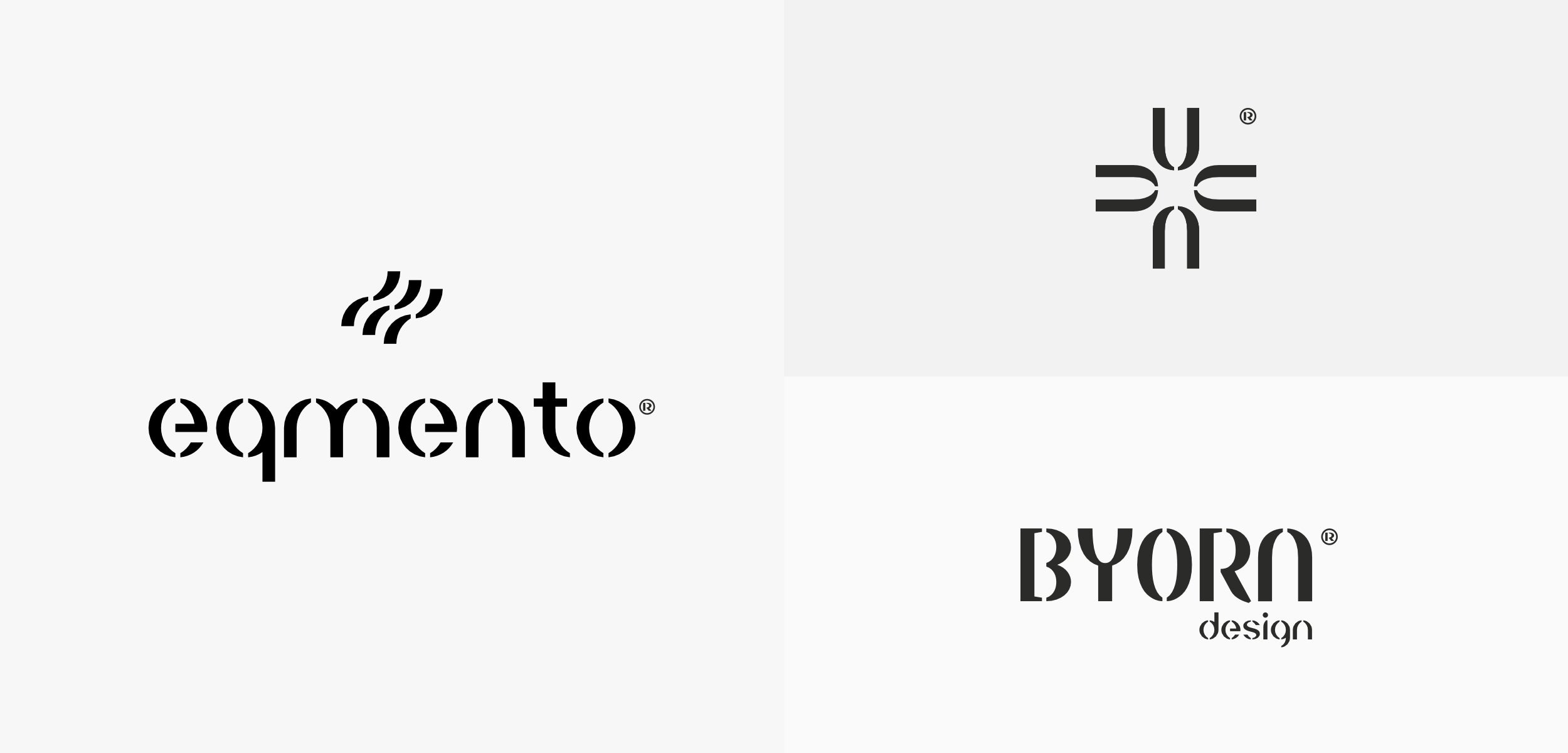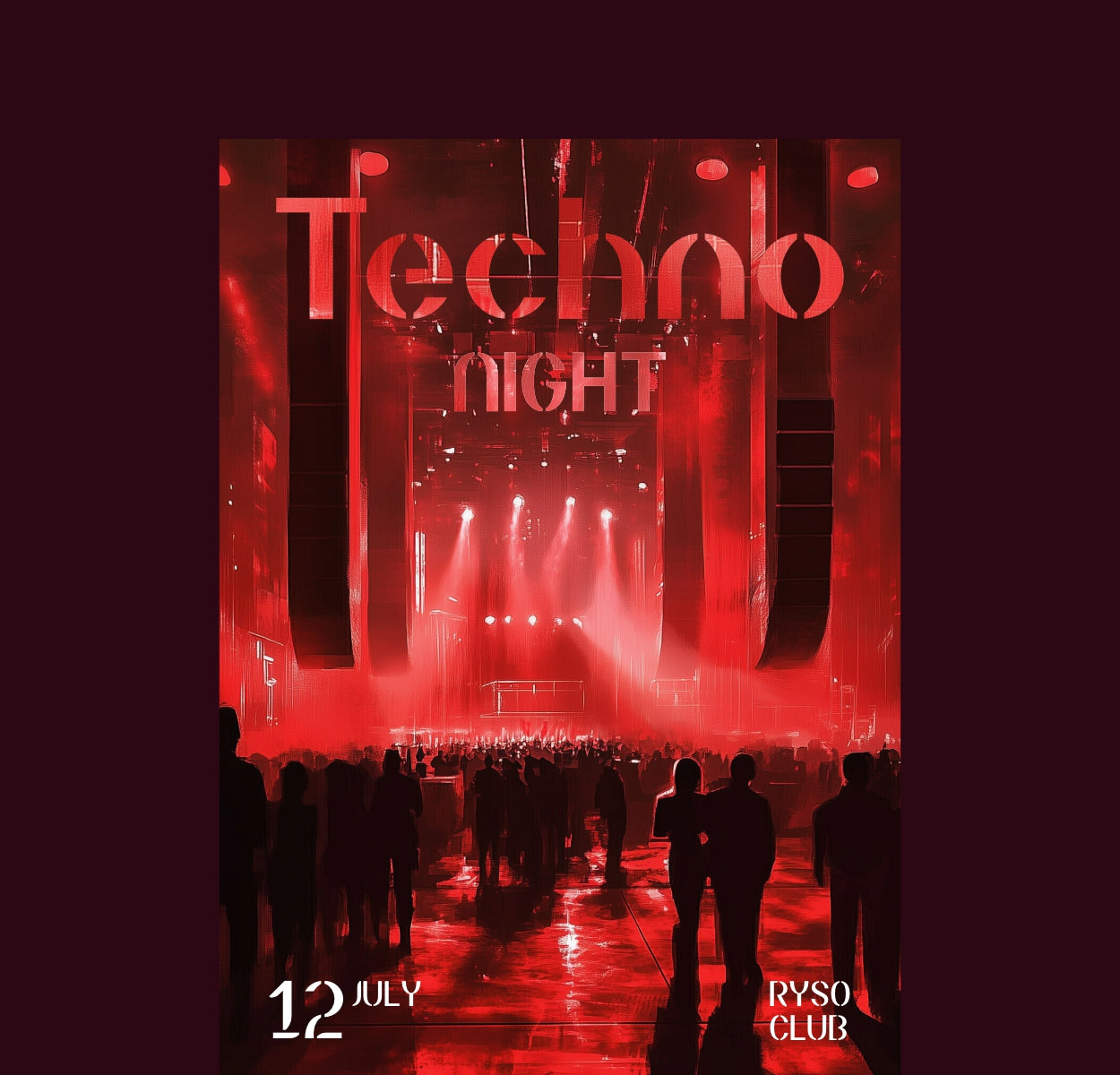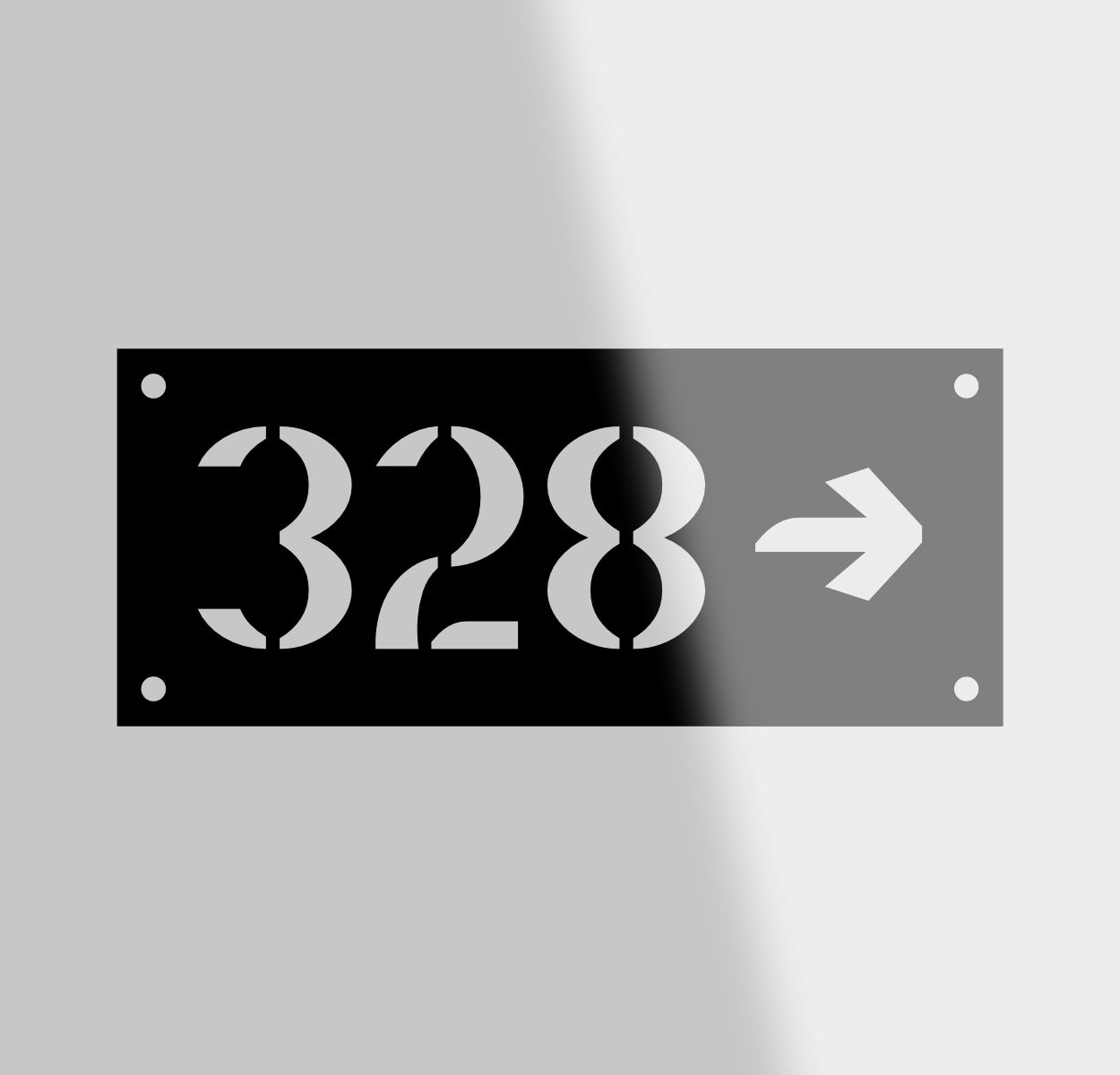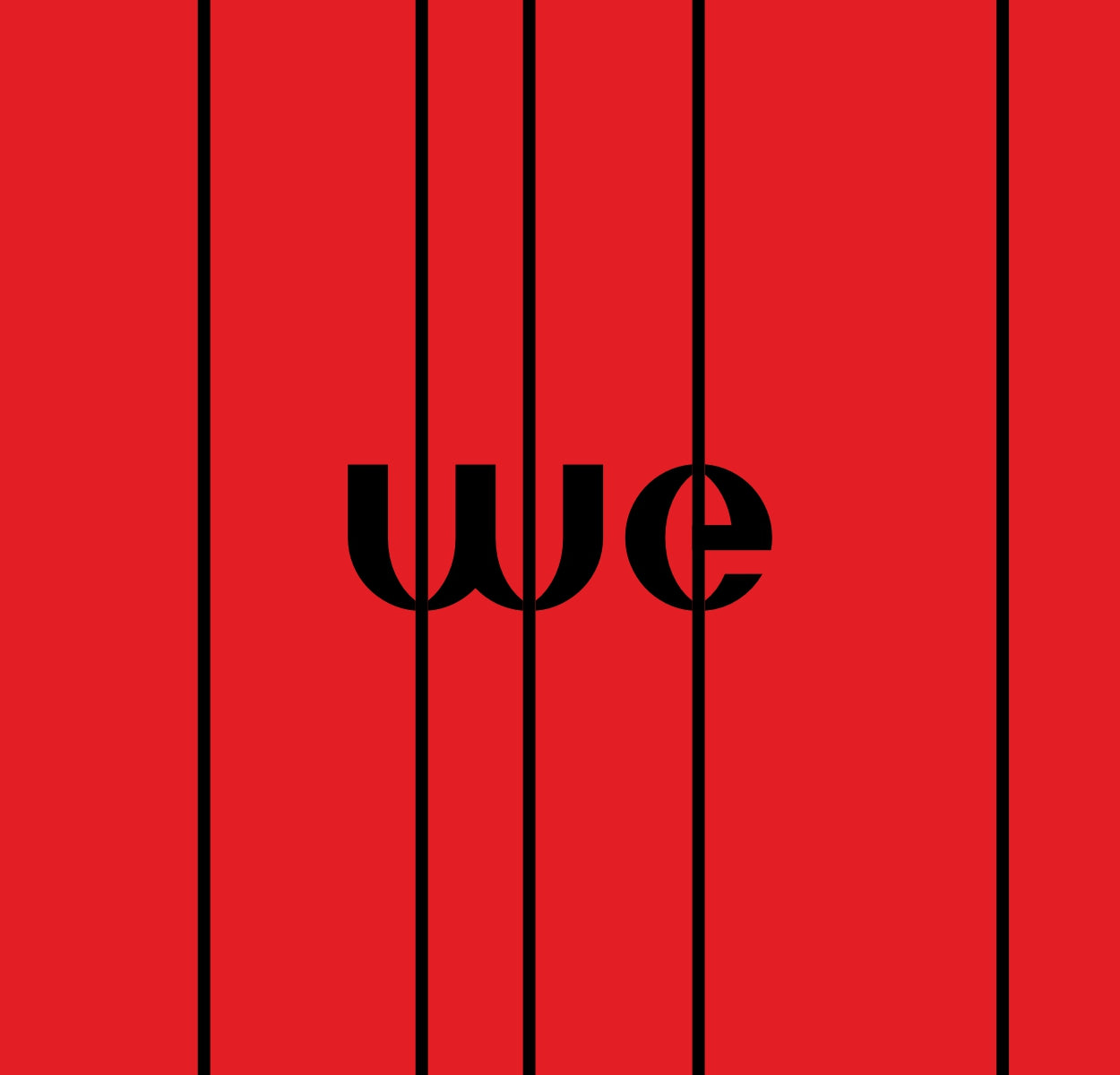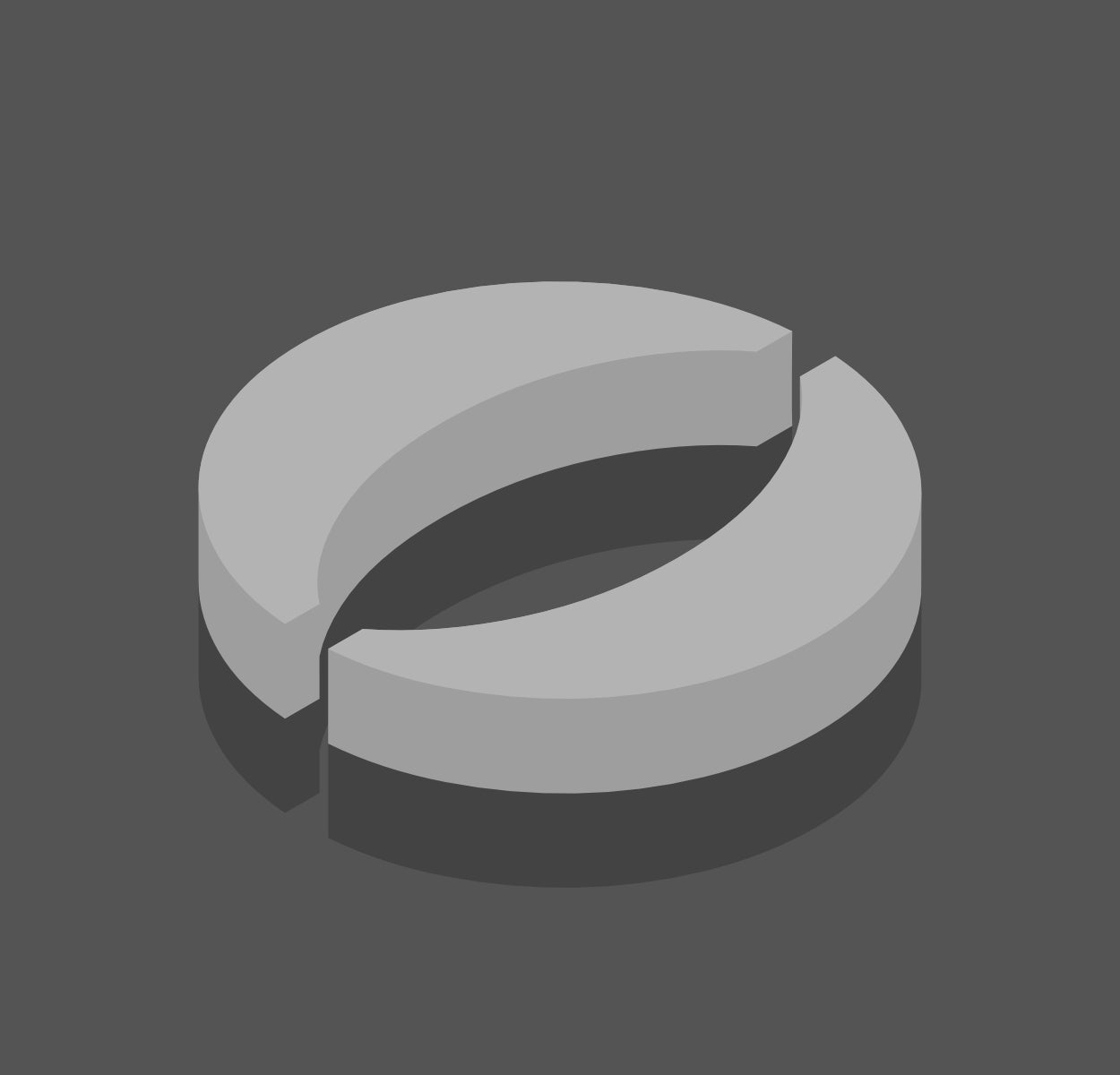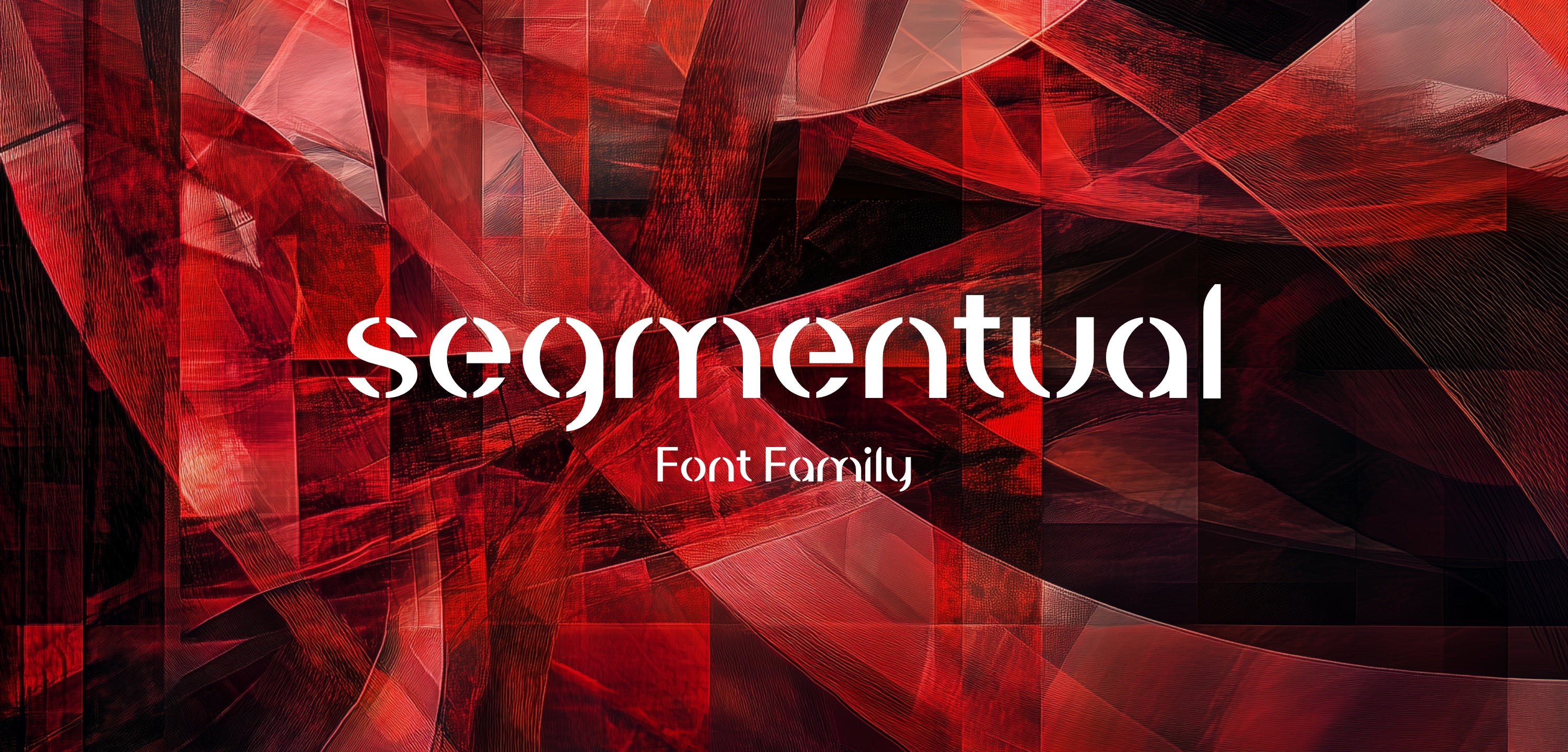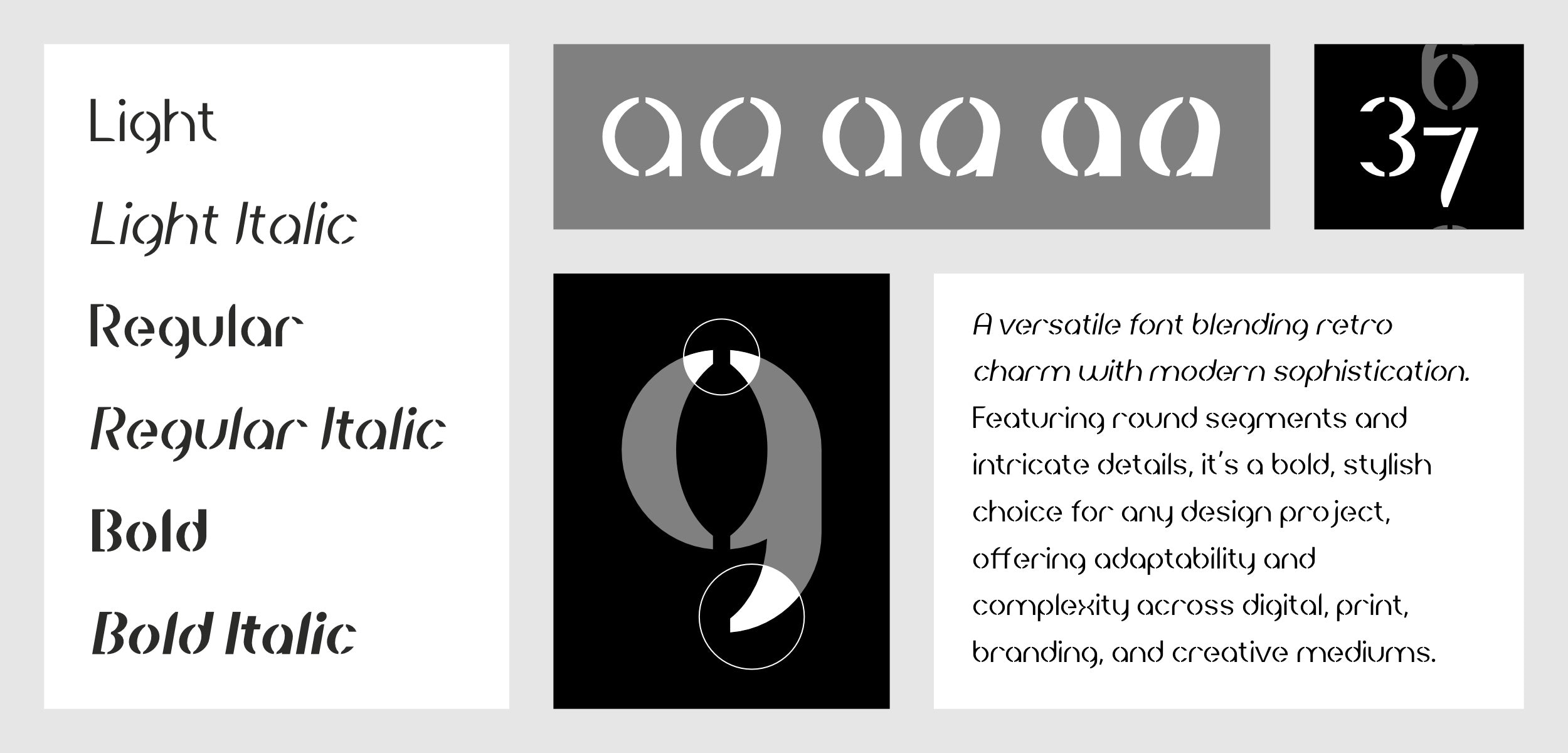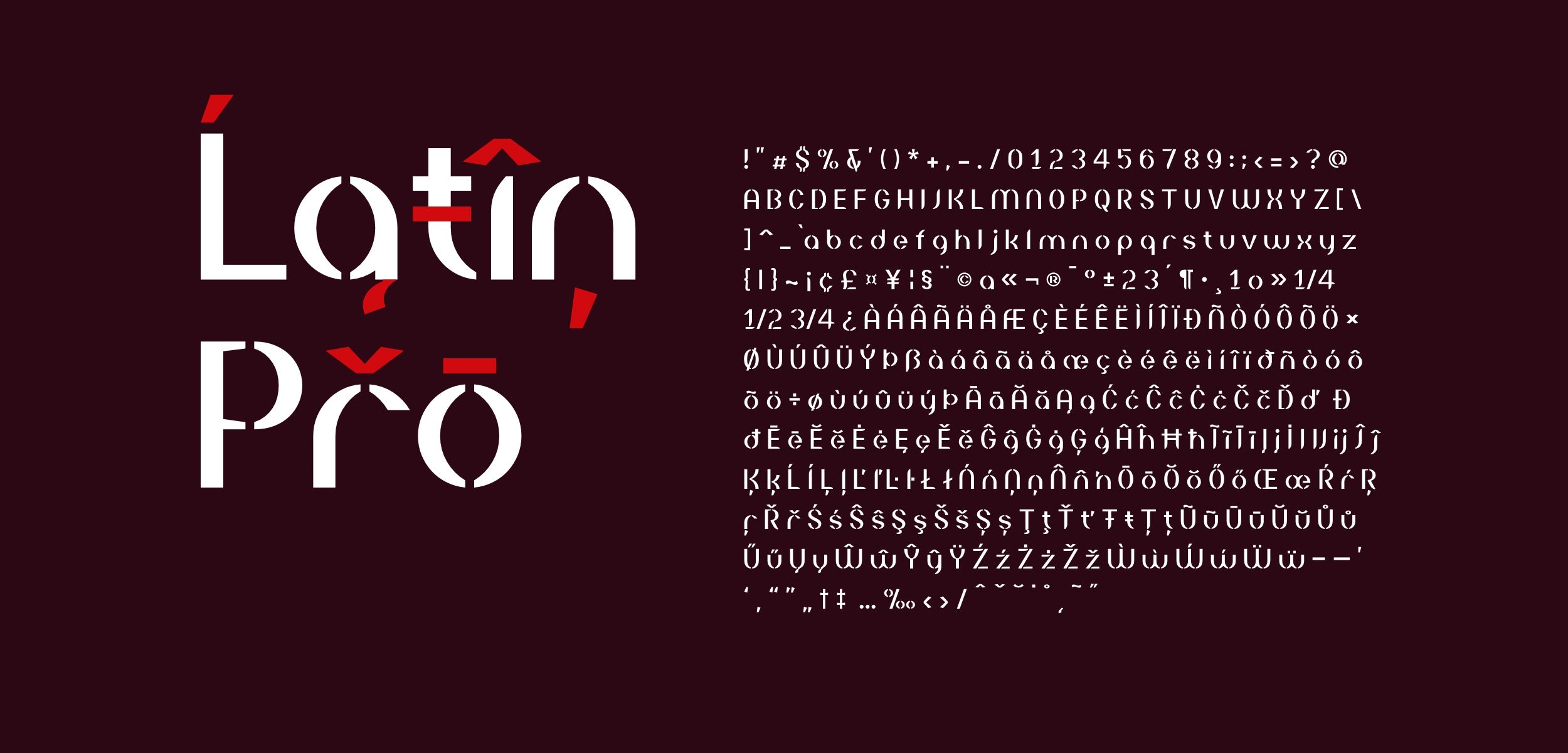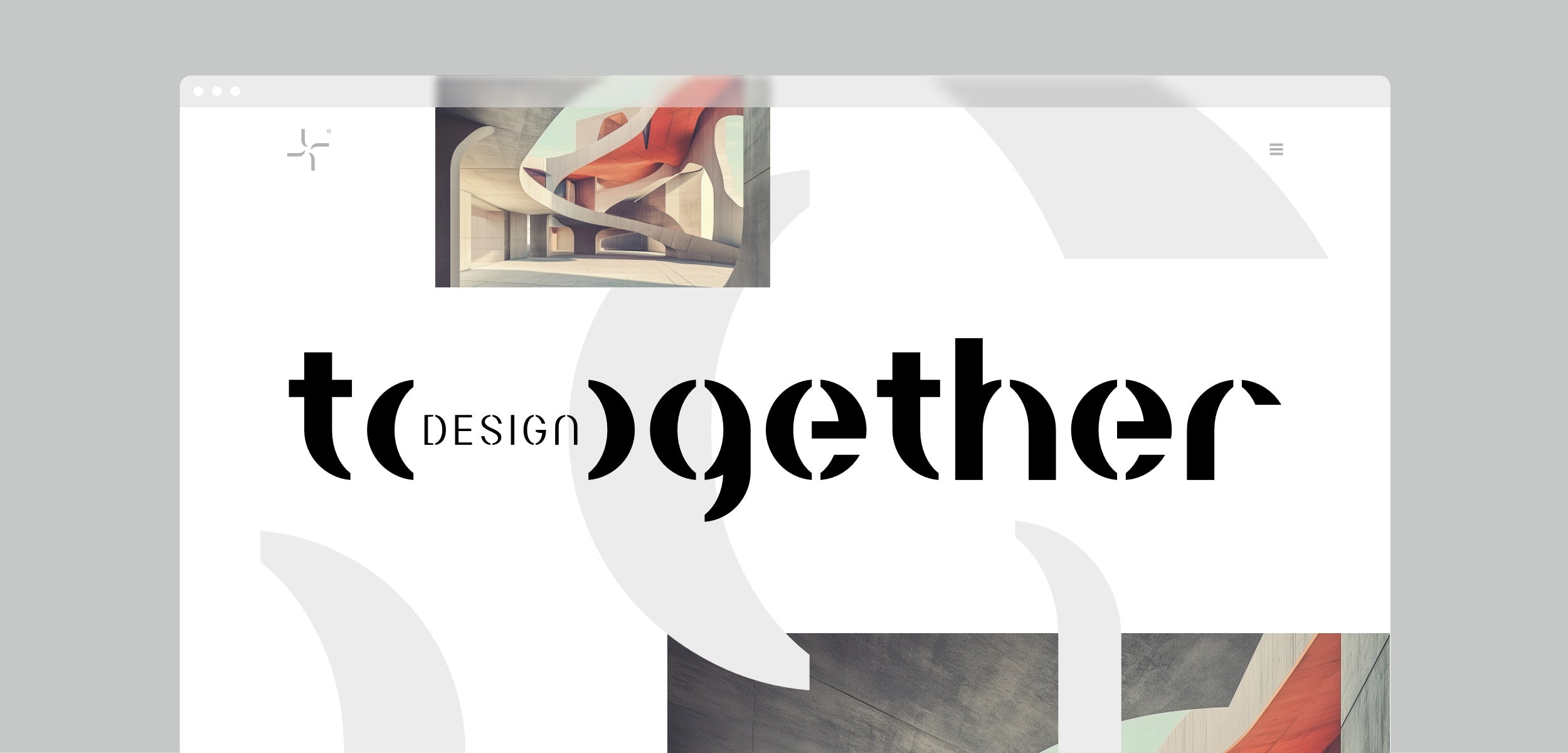
Use the segments of the font to create symbol plus wordmark structures for your brand identity projects.
Create bold wordmark logos using only the font characters.
Create symbols and logomarks using only font elements.
Segmentual’s retro-modern aesthetic enhances print with bold headlines, unique textures, and memorable designs for posters, packaging, and branding.
Segmentual’s geometric forms inspire innovative decor, signage, and wall patterns, complementing both modern and vintage interiors with creative accents.
Segmentual’s modular segments enable stunning patterns and layouts, offering limitless possibilities for creating distinctive, eye-catching visuals across all design projects.
Segmentual’s adaptable shapes transform into striking 3D models, ideal for futuristic typography, product concepts, and immersive visual designs.
Segmentual’s retro-modern aesthetic enhances print with bold headlines, unique textures, and memorable designs for posters, packaging, and branding.
Segmentual’s geometric forms inspire innovative decor, signage, and wall patterns, complementing both modern and vintage interiors with creative accents.
Segmentual’s modular segments enable stunning patterns and layouts, offering limitless possibilities for creating distinctive, eye-catching visuals across all design projects.
Segmentual’s adaptable shapes transform into striking 3D models, ideal for futuristic typography, product concepts, and immersive visual designs.